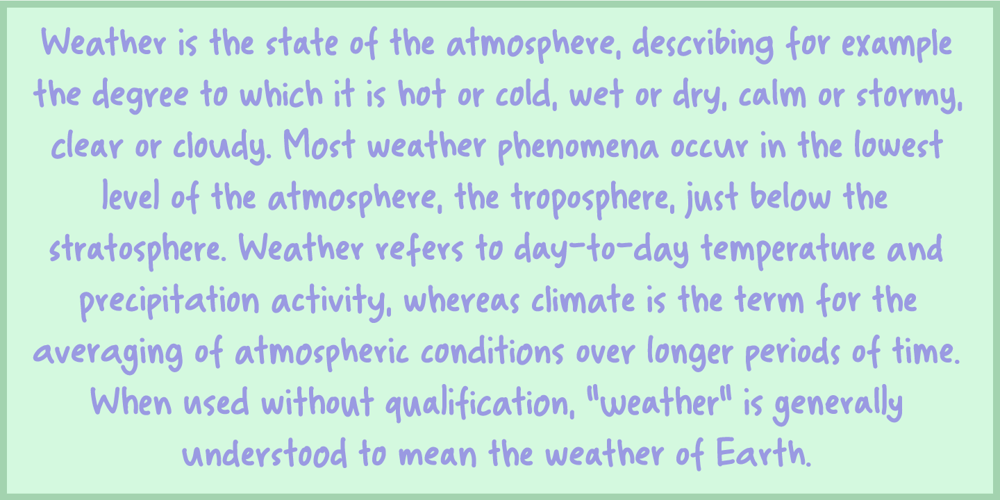
Finurlig
Finurlig font
Finurlig Font Family was designed by published by Bogstav. Finurlig contains 2 styles and family package options. Finurlig is my simple, legible and scribbled handwritten font. Use it for notes and stuff that needs that handmade look.